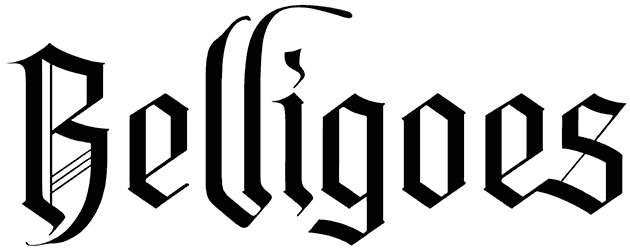
Belligoes Font
Designed byAlit Design
If you want to convey a royal vibe to your viewers, it’s highly impressive to use an old English font like Belligoes. The elegant and salient letters are designed to throw a charming vibe into your words. Just start to use this blackletter font for your intended projects, from branding to book covers, and show off your aesthetic mastery.